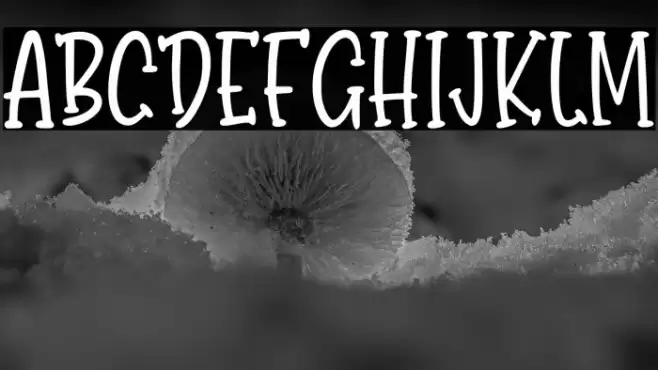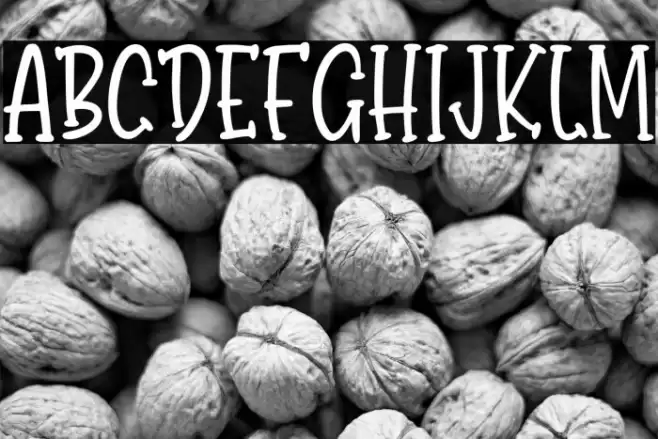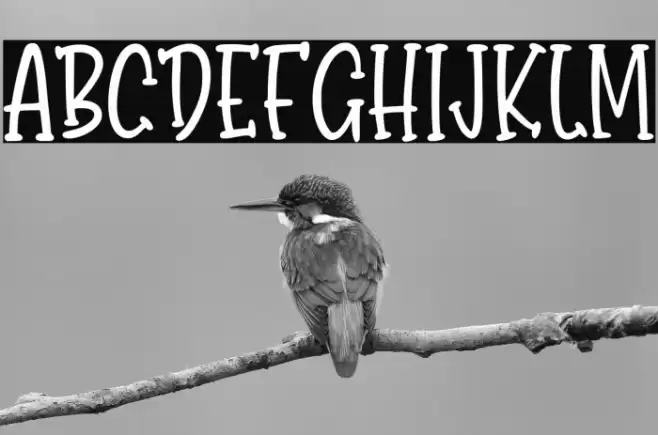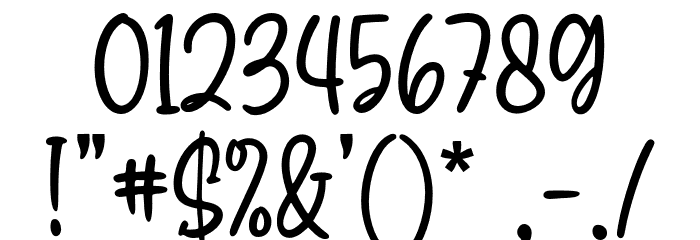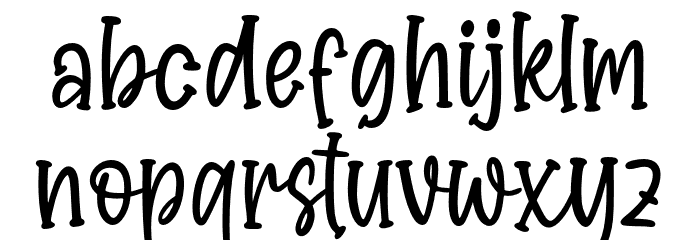
BondyQuirky-Regular Font
BondyQuirky-Regular Description
This font features a playful and whimsical design, characterized by its hand-drawn appearance. The letters have a casual, informal style with slightly irregular strokes, giving it a quirky and lively feel. The uppercase and lowercase letters maintain a consistent style, with rounded edges and a slight slant, adding to its approachable and friendly look. The numerals and special characters follow the same design principles, ensuring a cohesive appearance across all glyphs. This font is ideal for projects that require a touch of personality and creativity.
A playful, hand-drawn font with a quirky and lively style from Cartoon fonts.
- Proposed Projects: Ideal for greeting cards, children's books, playful branding, and creative social media graphics.
- Use Case: Headlines, Logos, Creative projects